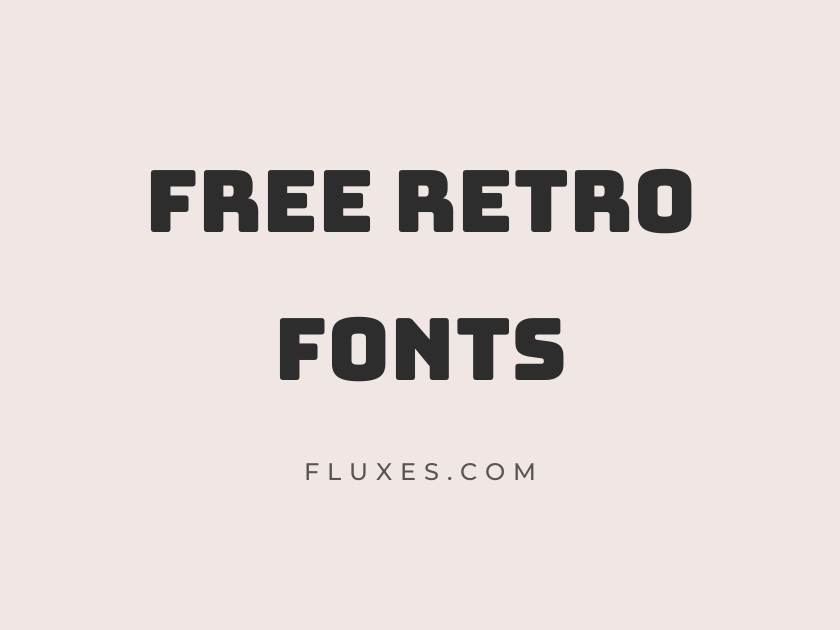
65 Best Free Retro Fonts
Retro design never really goes out of style; it just cycles back with a new coat of paint. Whether you are chasing a 1950s diner menu, a psychedelic 1970s concert poster, an art deco jazz-age invitation, or the neon glow of 1980s arcade culture, the right typeface does most of the storytelling before a single word is read. Google Fonts has quietly built one of the richest libraries of free retro and vintage fonts anywhere online, covering everything from hand-painted western signage to space-age futurism, so there is no need to pay for a premium foundry license to get an authentic period feel on packaging, posters, logos, or apparel.
1. Bungee
Neon signs and city marquees light up downtown
Bungee was built for urban signage, and it shows in every chunky, high-contrast letterform. It reads best big, on posters, badges, or anywhere you want a shout rather than a whisper.
2. Bungee Shade
Drive-in movie night under the summer stars
The layered drop shadow baked into Bungee Shade gives flat digital designs an instant sense of dimension and 1950s roadside glamour. Use it sparingly; a whole paragraph of it turns busy fast.
3. Bungee Inline
Roller rink open late, skates included free
This outlined sibling of Bungee trades solid weight for a hollow, badge-like structure that suits patches, stickers, and varsity-adjacent branding.
4. Righteous
Surf shop specials all summer long, dude
Righteous has a friendly, rounded swagger that recalls 1970s van art and skateboard decks without tipping into cartoonish territory.
5. Alfa Slab One
Old-time general store, established many years ago
Heavy slab serifs like this one were the workhorses of vintage advertising, built to survive cheap paper and low-fidelity printing. Alfa Slab One channels that same stubborn, ink-heavy confidence at any size.
6. Ultra
Bold headlines for a mid-century magazine spread
Ultra is a fat face with roots in nineteenth-century poster printing, later revived constantly through mid-century advertising. It commands attention in a headline and gets muddy fast if you try to shrink it down.
7. Bevan
Frontier trading post, honest goods and prices
A slab serif with a slightly rustic, hand-cut feel, Bevan sits comfortably on anything wanting a western or pioneer-era mood.
8. Rammetto One
Bubblegum pop, three flavors for a nickel
There is a playful, inflated roundness here that feels lifted straight from a 1960s candy wrapper.
9. Passion One
Championship game, Friday night under the lights
Rounded and sturdy, Passion One leans toward the collegiate and varsity end of retro, the kind of lettering you’d expect stitched on a letterman jacket.
10. Anton
Extra! Extra! Read all about it today
Anton is an ultra-condensed grotesque with the density of old tabloid headlines. It is not decorative in the ornamental sense, but its sheer weight and compression instantly evoke mid-century print journalism.
11. Staatliches
Grand opening this weekend, everyone welcome
Compressed, all-caps, and a little scrappy at the edges, Staatliches works hard as a poster and badge font without asking for much space.
12. Six Caps
Vintage travel poster, see the coast
Six Caps
This is a very tall, very narrow display face suited to stacking multiple lines in a tight column, the way old railway and steamship posters used to do.
13. Bebas Neue
Est. nineteen fifty-two, still going strong
Few free fonts have been used as widely in modern retro-inspired branding as Bebas Neue. Its tall, uniform capitals feel at home on anything from craft beer labels to gig posters, and it pairs easily with a softer script for contrast.
14. Luckiest Guy
Comic book heroes save the day again
Bouncy, thick, and unapologetically cartoonish, Luckiest Guy recalls the lettering on vintage comic book covers and cereal boxes.
15. Titan One
Arcade tokens, twenty-five cents a play
The inflated, balloon-like strokes here suit 1980s arcade branding and kids’ packaging equally well.
16. Bowlby One
Big sale today, everything must go
Fat, rounded, and built for maximum shelf presence, Bowlby One borrows its energy from vintage supermarket circulars and clearance signage.
17. Chango
Taco stand on the corner, open till midnight
Chango
Chango carries a slightly rough, stenciled quality that feels at home in retro Mexican diner or lucha libre poster design.
18. Bagel Fat One
Fresh donuts and coffee, since way back
Bagel Fat One
A newer addition to the genre, Bagel Fat One has the rounded heft of 1970s bakery signage, comfortable and unpretentious.
19. Rye
Wanted, dead or alive, reward offered
Rye is a western slab straight out of a saloon poster, complete with the slight ornamental notch that reads as frontier-era craftsmanship.
20. Sancreek
Livery stable and general goods, main street
Rough-hewn and weathered in feeling even at full digital crispness, Sancreek is a reliable pick whenever a project needs an Old West flavor without going full novelty.
21. Smokum
Traveling circus comes to town tonight
Smokum
This one is loud, wavy, and a little unhinged in the best way, built for carnival and sideshow signage rather than body copy of any kind.
22. Frijole
Chili cook-off, blue ribbon winner announced
Frijole
Frijole has a heavy, hand-painted quality reminiscent of vintage Mexican and southwestern signage. It is a display font only; keep it to a few words at a time.
23. Butcherman
Haunted house, enter if you dare
With its dripping, jagged edges, Butcherman leans into carnival horror and vintage monster movie posters more than general retro use, but within that niche it is excellent.
24. Vast Shadow
Traveling salesman, tonic guaranteed to cure
A serif with a built-in shadow effect that recalls hand-lettered patent medicine labels and old advertising broadsides.
25. Poiret One
Champagne and jazz, the party never stops
Thin, geometric, and elegant, Poiret One is one of the closest free approximations of true 1920s Parisian art deco lettering. It is far too delicate for small print, but as a headline over a gold-and-black palette it is hard to beat.
26. Fascinate
Speakeasy entrance, password required tonight
The interlocking geometric shapes here are pure Gatsby-era ornament, best reserved for short words like a wordmark or invitation header.
27. Fascinate Inline
Grand ballroom, dancing until dawn
Fascinate Inline
An outlined variant of Fascinate that reads a touch lighter on the page, useful when the solid version feels too heavy against a busy background.
28. Cinzel Decorative
A toast to the roaring twenties tonight
Cinzel Decorative dresses classical Roman capitals in ornamental flourishes, making it a fitting choice for anything with a vintage formal or theatrical air, from playbills to wine labels.
29. Yeseva One
Antique shop, treasures from every decade
Part serif, part hand-drawn, Yeseva One has an old-fashioned elegance that suits vintage branding, bakery packaging, and editorial headlines alike.
30. Abril Fatface
Vogue of yesteryear, timeless style returns
Originally inspired by nineteenth-century fashion advertising, Abril Fatface brings extreme thick-thin contrast that photographs beautifully in large sizes on posters and magazine covers.
31. Berkshire Swash
Yours sincerely, written in the old style
A swashy vintage script that recalls hand-lettered wedding stationery from decades past, best used for accent words rather than long lines.
32. Pacifico
Endless summer, waves and vinyl records
Originally designed for a surf shop logo, Pacifico has become shorthand for laid-back 1950s and 60s California cool. It pairs naturally with a clean condensed sans for contrast.
33. Lobster
Malt shop milkshakes, two straws please
One of the most recognizable free scripts on the web, Lobster leans into a bold, glossy retro Americana feel that suits diners, soda labels, and casual branding.
34. Sacramento
Love letters from the swinging sixties
Thin, looping, and a little playful, Sacramento evokes 1960s greeting card lettering more than anything heavier or more formal.
35. Grand Hotel
Checking in, room service around midnight
There is a glamorous, slightly wobbly charm to Grand Hotel that suits vintage hospitality branding, from hotel matchbooks to cocktail menus.
36. Kaushan Script
Handwritten postcards from a road trip
Brush-based and confident, Kaushan Script has enough weight to hold its own as a headline rather than disappearing into decoration.
37. Fredericka the Great
Old newspaper classifieds, curiosities for sale
This quirky, uneven script has the charm of hand-set vintage advertising type, imperfect in a way that feels intentional and warm.
38. Damion
Sun-bleached postcard from the coast
Damion
A relaxed, slightly retro brush script that works well as a secondary accent alongside a bolder display face.
39. Sedgwick Ave
Skateboard deck art, straight from the garage
Sedgwick Ave
Loose and marker-drawn in feeling, Sedgwick Ave captures the DIY energy of 1970s skate and street culture rather than anything polished.
40. Sedgwick Ave Display
Backyard boombox, cassette tapes and chalk
Sedgwick Ave Display
A bolder, more compressed take on its sibling, better suited to short punchy headlines than long phrases.
41. Merienda
Vintage bakery, fresh bread every morning
Merienda
Rounded and friendly with a hand-lettered quality, Merienda works nicely for retro food and craft branding that wants warmth over polish.
• Styles: 7 weights (Light to Black)
42. Boogaloo
Groovy record shop, spin something new
Boogaloo is pure 1970s bubble lettering, thick, rounded, and a little psychedelic without needing extra ornamentation.
43. Cherry Cream Soda
Soda fountain float, cherry on top
Cherry Cream Soda
The inflated, syrupy curves here practically taste like a 1970s soda shop menu board.
44. Chewy
Saturday morning cartoons and cereal bowls
Playful and rounded, Chewy suits nostalgic children’s branding and packaging more than any serious editorial use.
45. Modak
Funhouse mirrors and cotton candy stands
Bold and puffy, Modak has a carnival, almost inflatable quality that reads as gleefully retro rather than modern.
46. Shrikhand
Technicolor movie poster, now showing everywhere
Thick and slightly wavy, Shrikhand has a Bollywood-poster energy from the 1960s and 70s that translates well into general groovy branding.
• Language support: Latin, Latin Extended, Gujarati
47. Fredoka
Roller disco, spin under the mirror ball
Fredoka’s soft geometric roundness gives it a friendly 70s toy-catalog feel at medium weights, while staying legible enough for short body text.
48. Concert One
Live music tonight, doors open at eight
Concert One
A chunky rounded sans with a bit of bounce, Concert One suits gig posters and band merch that want a retro-casual voice.
49. Bangers
Pow! Bam! Comic panel action ahead
Inspired directly by mid-century comic book lettering, Bangers is loud, condensed, and built entirely for short exclamatory bursts of text.
50. Special Elite
Top secret memo, typed in triplicate
Distressed just enough to feel authentic without becoming illegible, Special Elite recreates the uneven strike of a manual typewriter. It is a natural fit for noir-styled branding, detective-story packaging, or anything pretending to be a found document.
51. Courier Prime
Carbon copy, filed for the record
Courier Prime
A cleaner, more refined take on the typewriter genre, Courier Prime keeps the vintage monospace rhythm while staying legible enough for longer passages of text.
52. Orbitron
Tomorrow's world, built with chrome and glass
Orbitron captures the optimistic, geometric futurism that 1970s and 80s designers imagined the future would look like, making it a natural choice for synthwave and retro sci-fi projects.
53. Audiowide
Turbo racing league, laps around the track
Audiowide
Wide, mechanical, and a touch metallic in feeling, Audiowide suits retro racing graphics and video game branding.
54. Aldrich
Mission control, countdown to liftoff
Aldrich
A geometric sans with a restrained space-age character, Aldrich works well for retro-futurist branding that needs to stay legible in smaller headings too.
55. Michroma
Analog synthesizer, warm tones from the past
Michroma
Wide-set and evenly weighted, Michroma has a quiet technological calm reminiscent of 1970s electronics packaging.
56. Monoton
Neon lights flicker over the boardwalk
Built entirely from parallel lines suggesting tube lighting, Monoton is the most literal neon-sign font available for free and reads best in short, glowing headlines.
57. Codystar
Late night diner, open twenty-four hours
Codystar
Thin and slightly spaced out, Codystar has a retro sci-fi, low-budget movie title feel that works nicely as an understated accent.
• Styles: 2 weights (Light, Regular)
58. Faster One
Race day, engines roaring at the starting line
Faster One
Italicized and aerodynamic in shape, Faster One suggests speed lines straight off a 1970s motorsport decal.
59. Wallpoet
Government surplus, army stencil lettering
A stenciled, military-inspired display face, Wallpoet fits industrial and wartime-era retro themes rather than anything soft or decorative.
60. Nova Mono
Vintage computer terminal, green screen glow
Nova Mono
The slightly irregular monospaced letterforms here recall early digital displays, useful for retro-tech or 8-bit inspired projects.
• Language support: Latin, Latin Extended, Greek
61. Original Surfer
Longboard rentals, right on the beach
Original Surfer
Rounded and casual, Original Surfer leans hard into 1960s beach culture, best kept to short headlines rather than paragraphs.
62. Trade Winds
Tiki bar, mai tais served after sunset
Trade Winds
With its exotic, slightly angular strokes, Trade Winds is a go-to for tiki, luau, and mid-century tropical branding.
63. Amatic SC
Hand-painted sign, farmers market every Saturday
Narrow and hand-drawn in spirit, Amatic SC brings an approachable, slightly imperfect charm that works nicely for rustic or folk-inspired retro branding.
• Language support: Latin, Latin Extended, Cyrillic, Hebrew, Vietnamese
64. Londrina Solid
Circus poster, one night only performance
Londrina Solid
Compact and rounded with a playful bounce, Londrina Solid suits playful vintage poster work at large sizes.
• Styles: 4 weights (Thin to Black)
65. Londrina Outline
Vintage marquee lights spelling out tonight's show
Londrina Outline
The hollow structure of this variant layers nicely over a solid color or texture, a common trick in retro poster design for adding visual depth without extra artwork.
Pairing and Using Retro Fonts Well
Most retro display fonts are built for short bursts of text, not paragraphs. Reserve them for headlines, logos, and badges, then hand body copy to a plain, highly legible serif or sans.
Contrast in weight and structure usually works better than matching two loud fonts together. A heavy slab like Alfa Slab One sits nicely above a light, simple sans; a script like Pacifico calms down next to a clean condensed caps font like Staatliches.
Color and texture do a lot of the era-defining work too. The same script or slab can read as 1950s diner or 1970s funk depending on the palette, grain, and layout around it.
Test any of these at the actual size you plan to use them before committing. Several of the more ornamental choices here look fantastic at poster scale and fall apart at ten pixels tall.
With so much genuine variety, there is rarely a reason to fall back on an overused system font when a project calls for personality. Download a few options that match the decade or mood you are chasing, test them against your actual layout and colors, and let the letterforms carry some of the nostalgia for you.